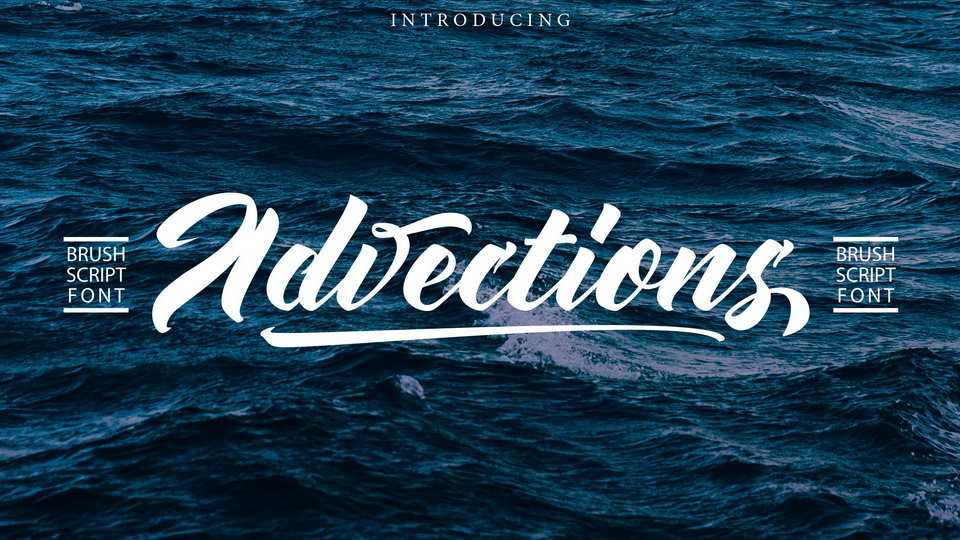
Advectionz Script Font › Fontesk – Download Grátis
Download Advectionz font, an impressive hand lettered typeface with a dynamic flow and playful look. Advectionz is perfect for logos, badges, labels, branding and more.